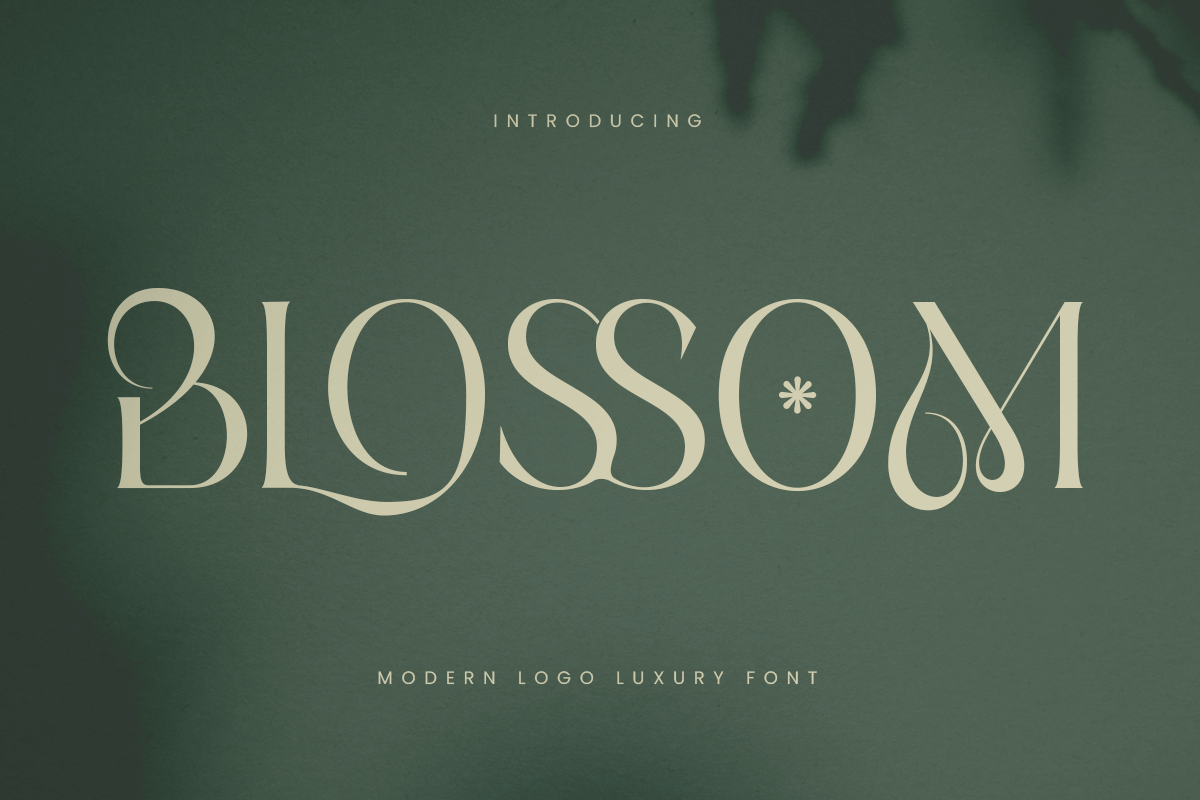
Blossom
-Modern Logo Luxury FontBlossom - Modern Logo Luxury Font
Blossom is a modern logo luxury font that exudes charm and sophistication. Its refined lines and harmonious shapes make it a perfect choice for creating designs that are both stylish and memorable.
Ideal for Upscale Branding
From luxury logos to elegant product packaging, Blossom is crafted for projects that require a touch of class. It brings a balance of modern simplicity and artistic flair, ensuring your designs stand out with grace.
Empower Creativity with Versatility
Blossom offers a seamless blend of luxury and modernity, giving designers the tools to create timeless masterpieces. Perfect for branding, fashion, and editorial projects, it’s a font that speaks sophistication.